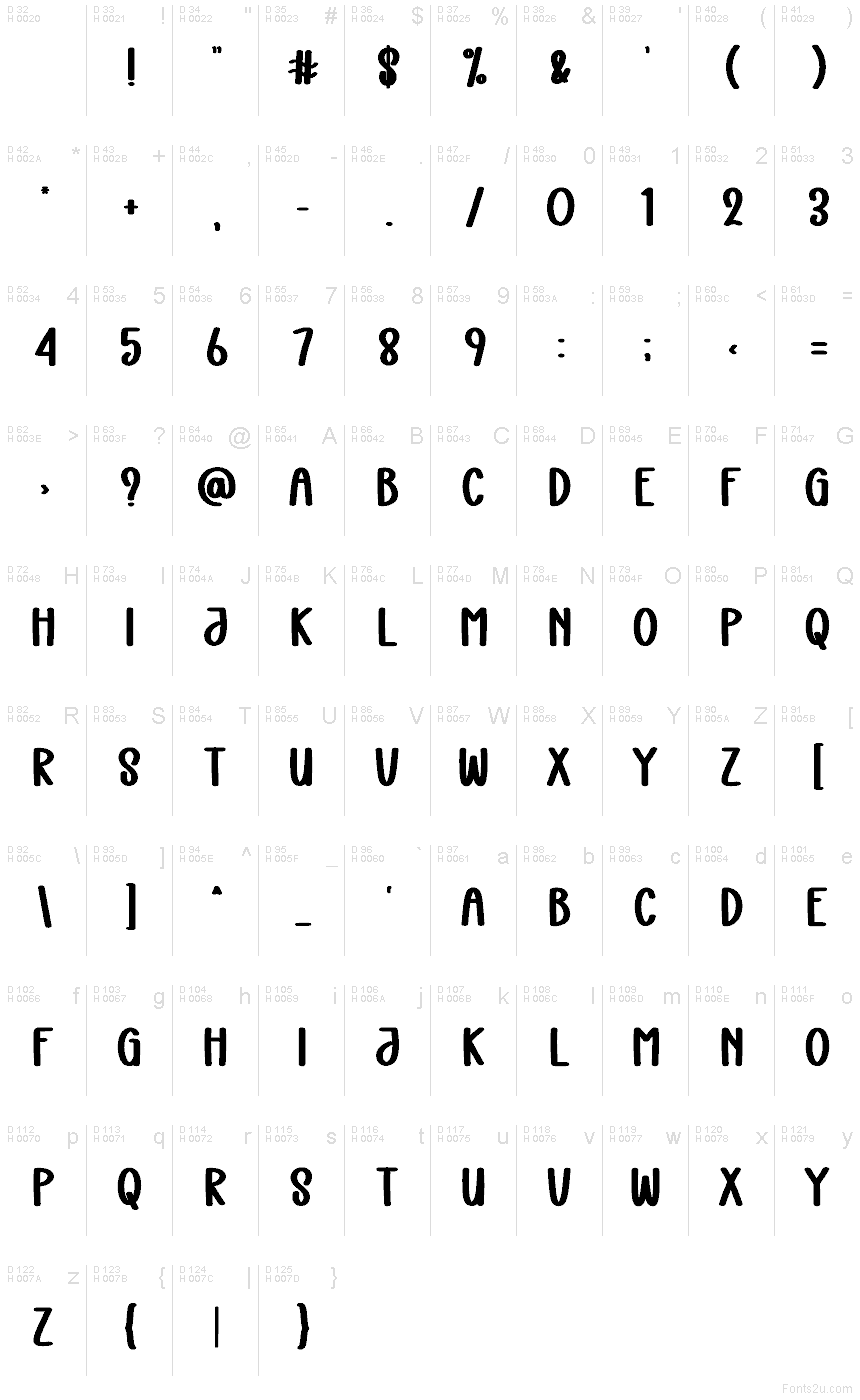
Lemon Butter
Lemon Butter font by Andi Moz is a handwritten typeface rooted in all that’s approachable and inviting. The font features a bouncy, airy style with rounded letters looking friendly and casual at first sight. This free font is as tasty visually as its name suggests, which makes it a suitable choice in projects that aim for relaxation and simplicity.
This handwriting-style typeface delivers its bubbly feel in landing pages, greeting cards, invitations, coloring books, stationery products, online ads banners scripts, quotes posts on social media platforms such as Instagram or Pinterest, logos design work for departments stores or websites product descriptions.